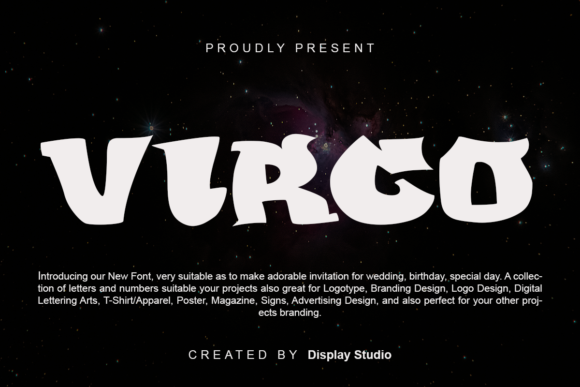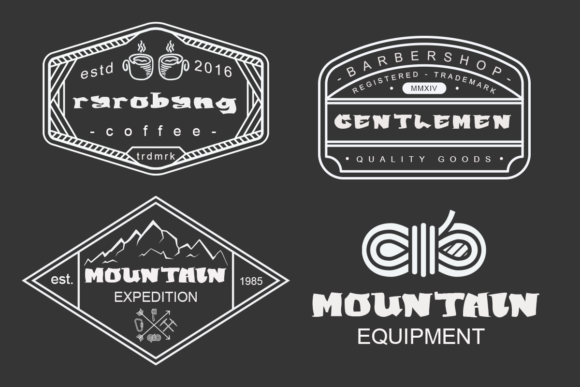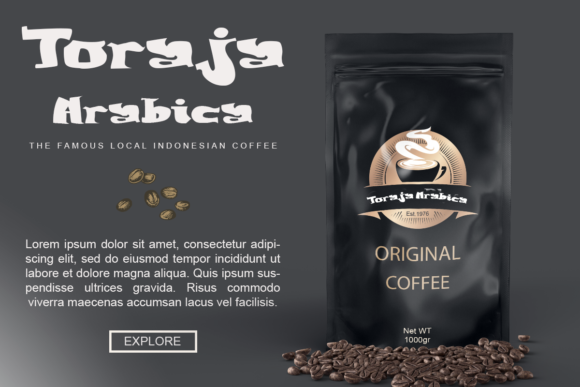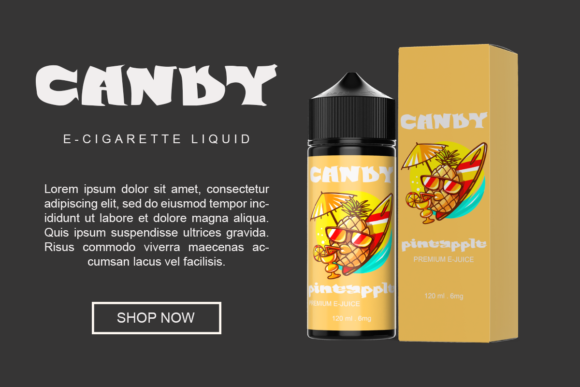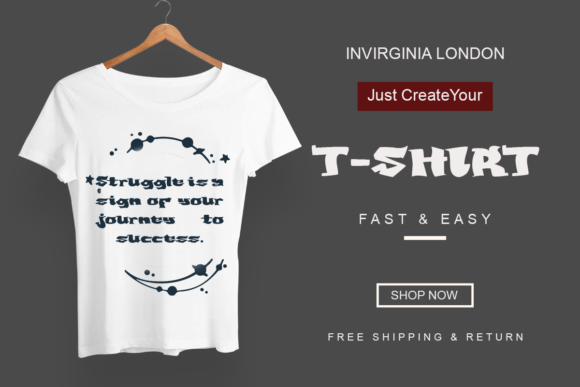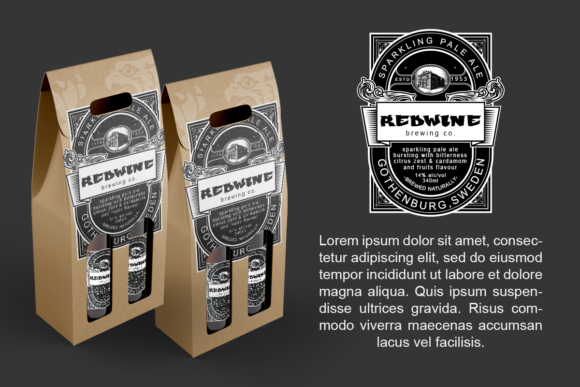
Virgo Font
Introducing Virgo, a cool and modern slab serif font that brings a contemporary edge to your designs. With its versatile nature, Virgo is perfect for a wide range of creative projects, including brand logos, invitations, greeting cards, and more. With its multilingual features and style variations, this typeface further enhances the aesthetic aspect of your work, making it truly stand out.
Virgo’s cool and modern design sets it apart as a font that exudes style and sophistication. Its clean lines and balanced letterforms create a sense of modernity while retaining a touch of classic elegance. Whether used for logos, headlines, or body text, Virgo adds a cool and trendy vibe to your designs.
Brand logos become visually captivating with the inclusion of Virgo. Its modern slab serif style adds a sense of professionalism and style to your brand’s identity. Whether you’re creating a logo for a tech startup, a fashion brand, or any other industry, Virgo ensures that your brand stands out from the competition and leaves a lasting impression.
Invitations and greeting cards come alive with the help of Virgo. Its versatile design allows it to adapt to various themes and styles, whether it’s a formal event, a playful party invitation, or heartfelt greeting cards. Virgo adds a touch of modern elegance that sets the tone for the occasion and creates a visually appealing design that recipients will admire.
With its multilingual features, Virgo ensures that your message can be effectively communicated across different languages and cultures. Whether you’re designing for a global audience or incorporating foreign phrases into your designs, Virgo’s extensive language support allows for seamless integration and legibility.
Style variations in Virgo provide further flexibility and customization options. Whether you prefer a bold and impactful look or a more refined and minimalist style, Virgo offers different weights and variations to suit your creative vision. This allows you to experiment and find the perfect fit for your project.
In summary, Virgo is a cool and modern slab serif font that adds a stylish and contemporary touch to your designs. Its versatility makes it a perfect choice for brand logos, invitations, greeting cards, and various creative projects. With multilingual features and style variations, Virgo enhances the aesthetic aspect of your work, ensuring that your designs are visually captivating and effectively communicate your message.